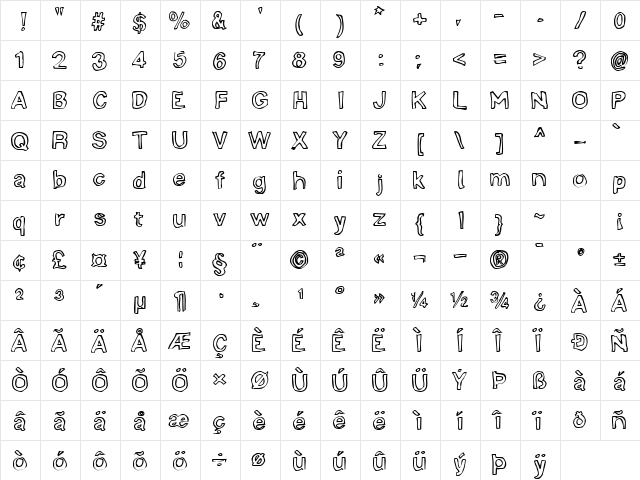
LTMineru Outline Regular
Design Context for LTMineru Outline Typeface
LTMineru Outline is built around its visual character rather than neutral utility — its distinctive forms are designed to make an impression at display sizes.
Font Pairing: Pair with a clean neutral sans-serif for body copy to let LTMineru Outline's character lead without overwhelming the composition.
Pro Tip: Use LTMineru Outline exclusively at display sizes — it was designed to be seen, not read at length. Let a neutral companion handle body copy.